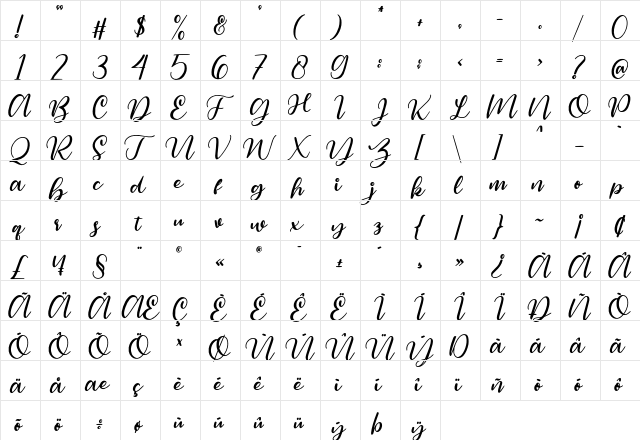
Magelove Regular
| Foundry | Garisman Studio |
| Designer | Risman Ginarwan |
Design Context for Magelove Typeface
Magelove is a composed and adaptable typeface that performs quietly and consistently across a wide range of design contexts.